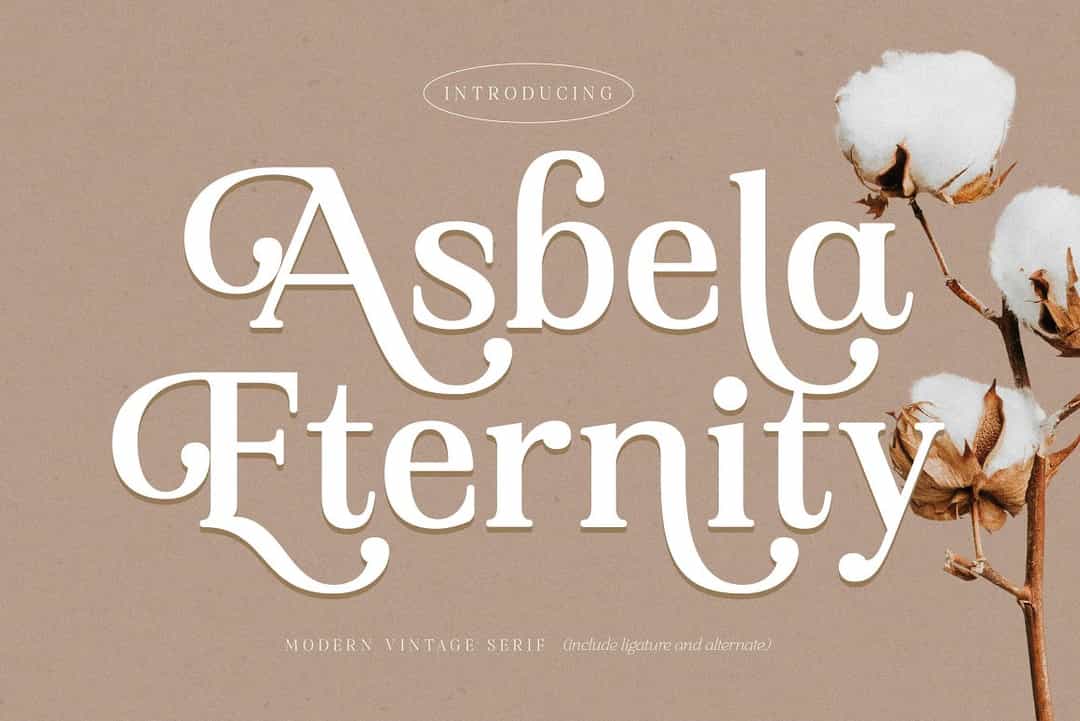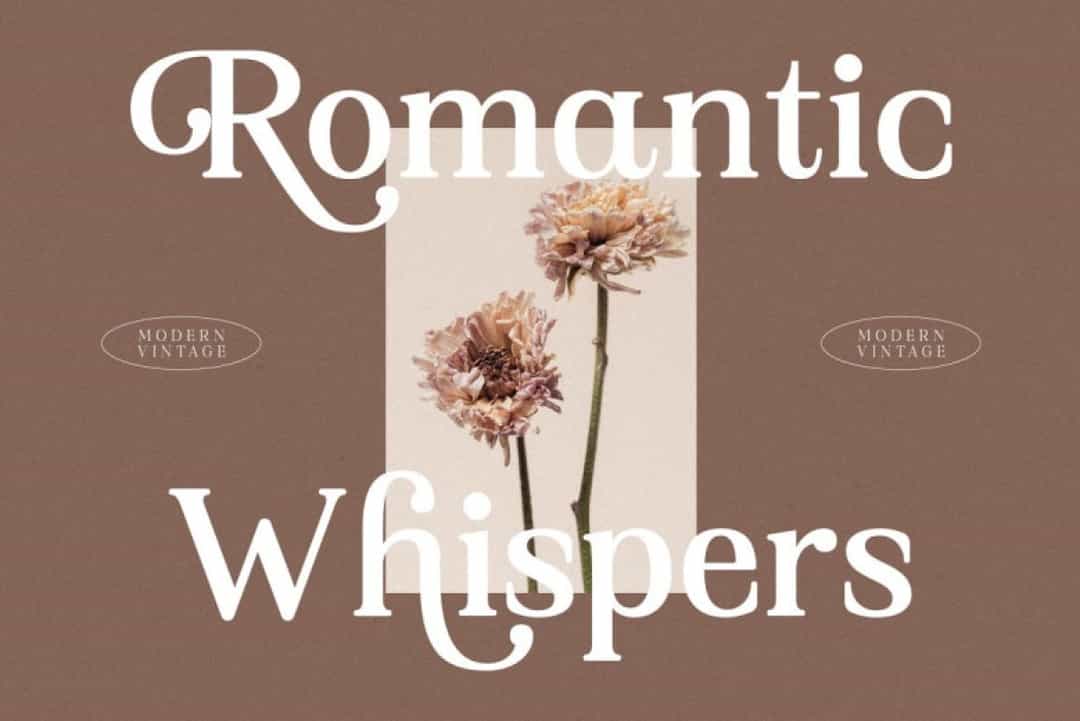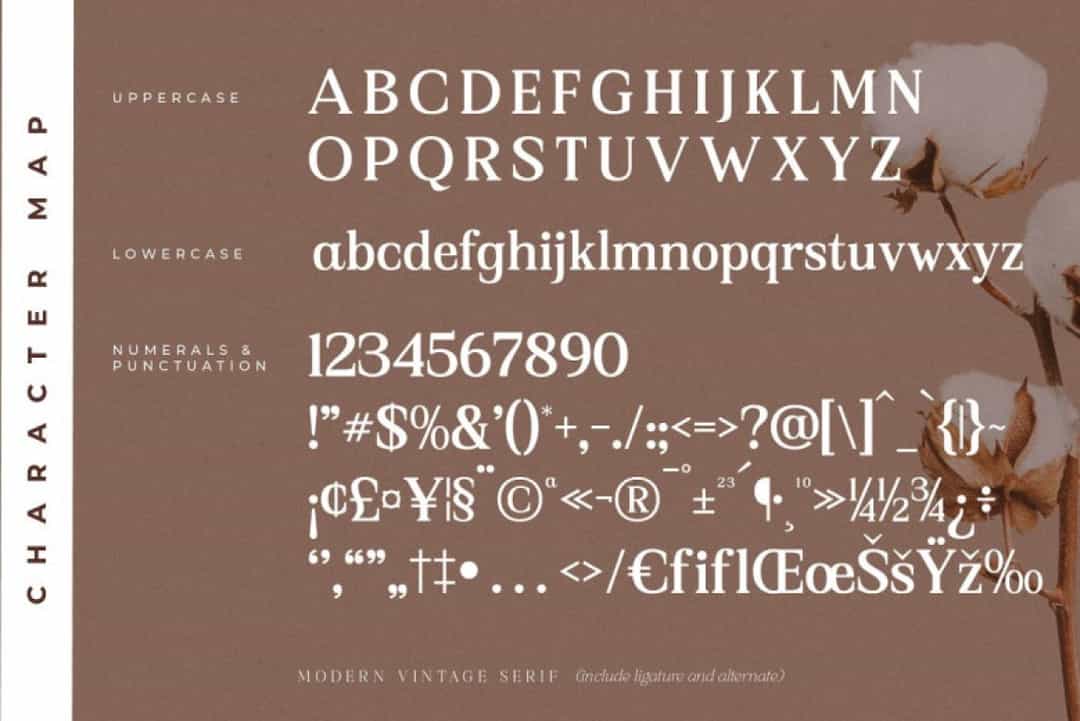
Asbela Eternity is a modern retro serif typeface with a distinctive and contemporary appearance, perfect for creating stylish logos, movie/book title designs, fashion brand clothing logos, magazine letters or quotes – among many other applications.